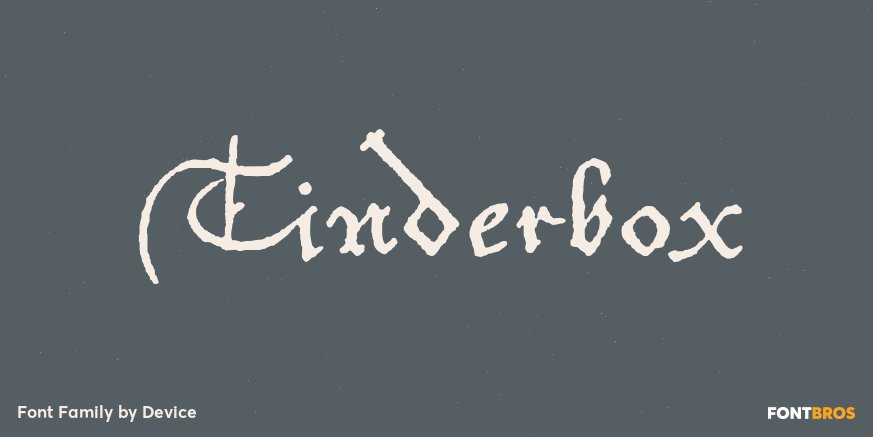
About Tinderbox
16th and 17th century formal handwriting forms the basis for Tinderbox, an antique script. Preserving the rough impression of a quill pen on parchment, Tinderbox evokes old manuscripts, ecclesiastical texts, gothic inscriptions, faded tattoos and horror…